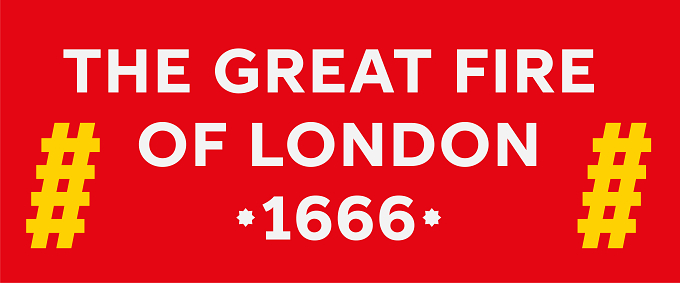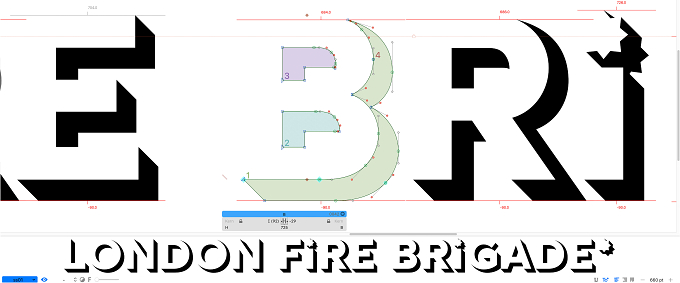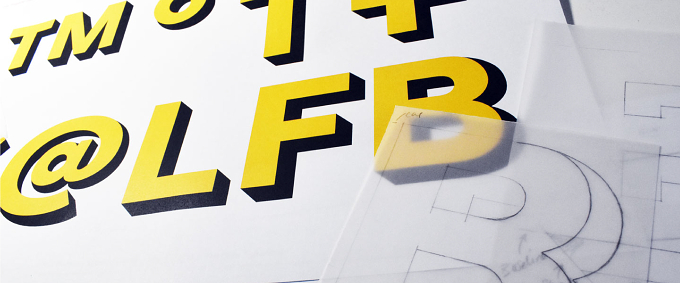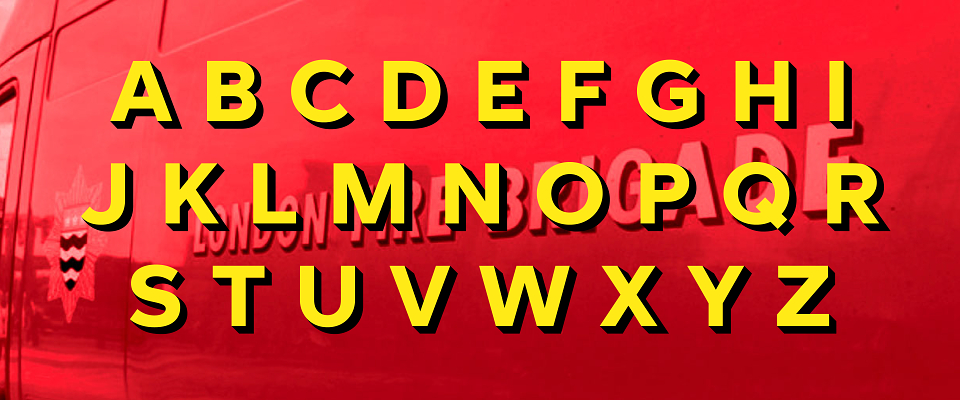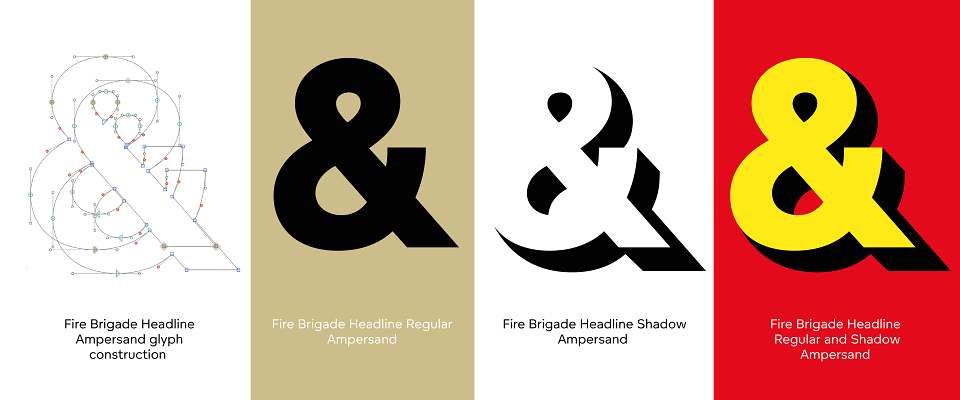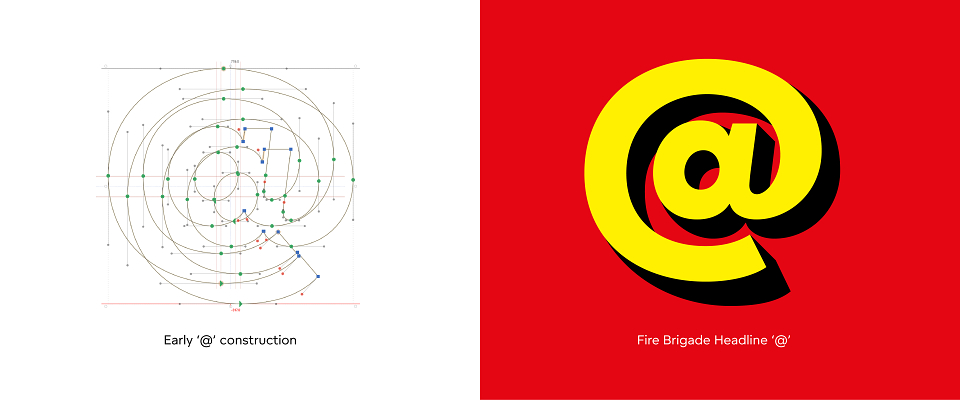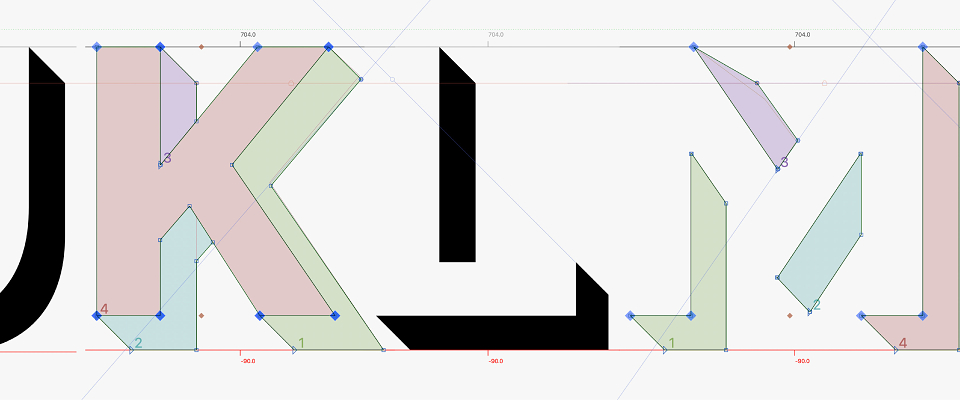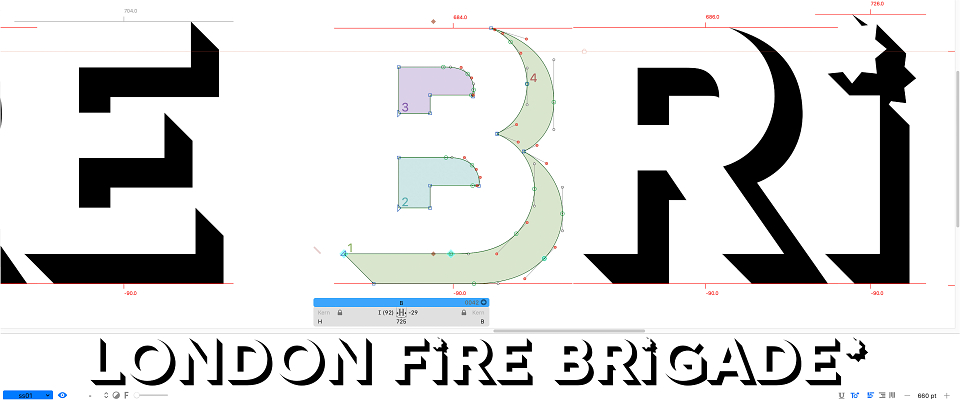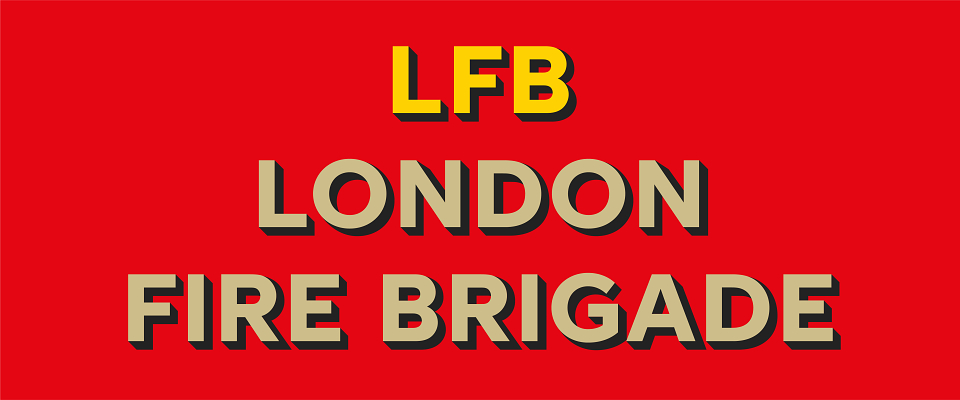
Fire Brigade Headline is the new typeface designed by The Foundry Types for the London Fire Brigade (LFB), in collaboration with leading London design agency Studio Sutherl&. The new display typeface combines two fonts layered together to form a 3D drop shadow effect – a modern take on the vintage Fire Engine lettering of a bygone era.
The London Fire Brigade commissioned The Foundry Types to create a bespoke typeface that is historic, relatable, and dynamic. The new Headline typeface will sit alongside the current primary typeface, Fire Brigade Sans, which seamlessly integrates with the new LFB brand identity. Inspired by the fire station architecture, façade signage, hand-painted lettering on the sides of horse-drawn Victorian water pumps, and London’s bygone fire engines. The grotesque style also embodies all the LFB’s desired characteristics: uniquely modern but classic, human and approachable, robust, bold, and strong.
The pure, simple, and humanistic forms of Fire Brigade Headline display are purposeful, and powerful yet with a warm tone of voice. Small design details: the indented middle E bar reminiscent of many 18th century sans serifs, low-legged ‘K’, ‘Q’ with a through bar, and distinctive figure ‘1’ and ‘7’ gives the font its character. The shadow of the font angle is set at 45˚ giving a sense of three-dimensional quality that is almost tangible.
When combining the two fonts; Regular and Shadow together, to create a 3D drop shadow effect, many overlapping and misalignment technical problems had to be resolved. Each glyph had to be crafted accurately to align perfectly when layered, promoting the appearance of a single 3D font. For instance, the rounder letters, ‘B, C, D, G, O, P, R, and S’ needed fuller curved shapes that enhances the depth of the shadow in keeping visually with the other letters. Also, the Regular or Shadow font can be used independently or alongside its counterpart.
The character set contains; capitals, figures, a set of eight arrows, punctuation, and a range of alternative glyphs; an extra ‘M’, two lowercase ‘i’s’, and punctuation with the LFB ‘Insignia Star Badge’ emblem. Also, not to forget that there’s a quirky double hashtag, echoing a fireman’s ladder – adding a sense of humour.
London Fire Brigade’s new typeface by The Foundry Types in collaboration with Studio Sutherl&